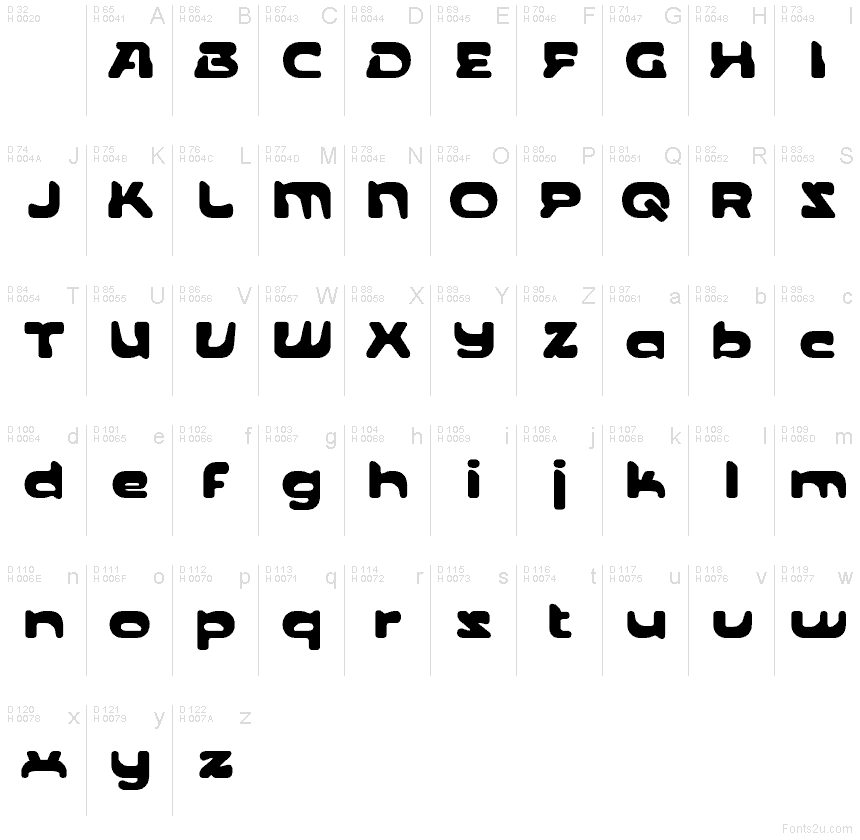
CS Battle Regular Demo
CS Battle font by Craft Supply Co. is a free bold expanded display font. Built around thick, pillowy strokes and smooth, rubbery curves, it stands out with sculpted notches that slice into the forms just enough to add techy bite. The wide stance and low contrast create a confident block of tone, while the rounded terminals keep it approachable—like a futuristic bubble letter that grew up and hit the gym.
Using CS Battle, headlines lock in fast and read from a distance, making this free font a natural fit for esports branding, sci‑fi posters, streaming overlays, tech event flyers, product packaging, and bold merch. It shines on big, tight-tracked titles; pair with a clean condensed grotesk for supporting text to balance the width and keep layouts snappy.